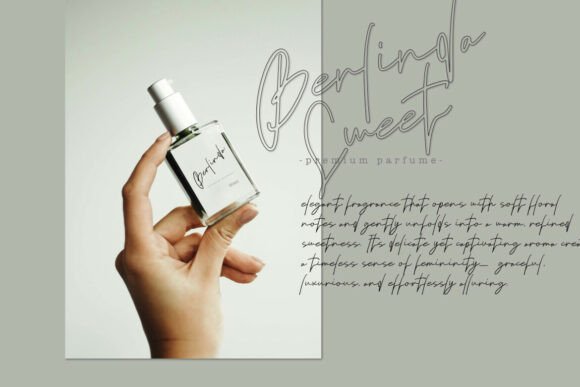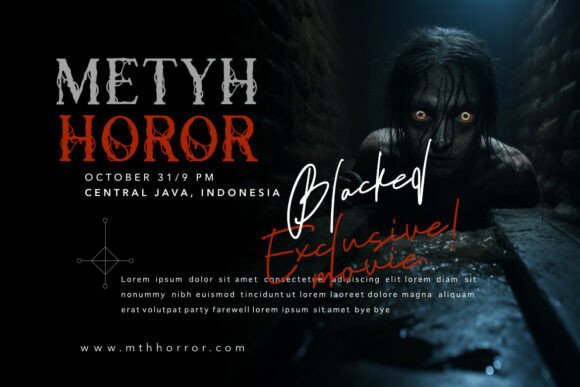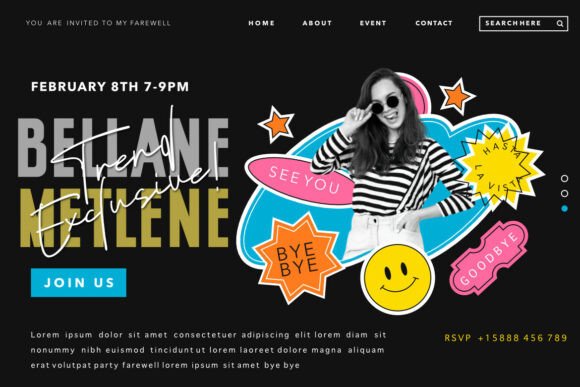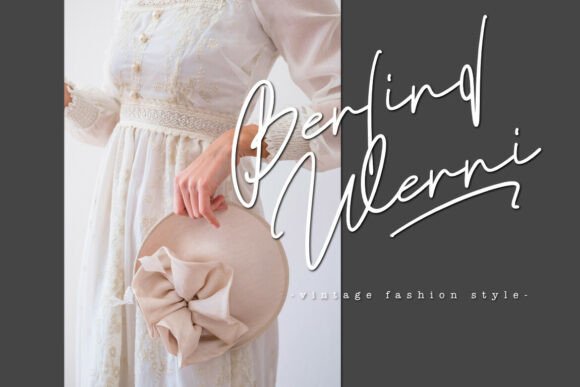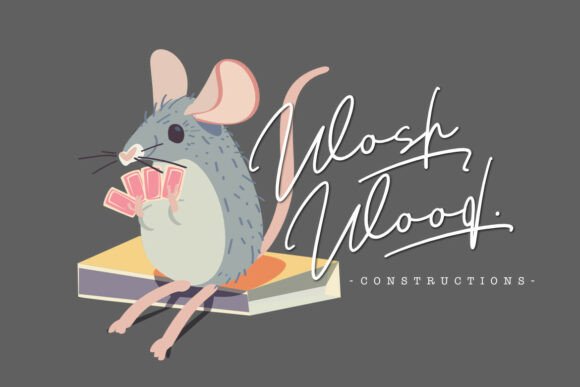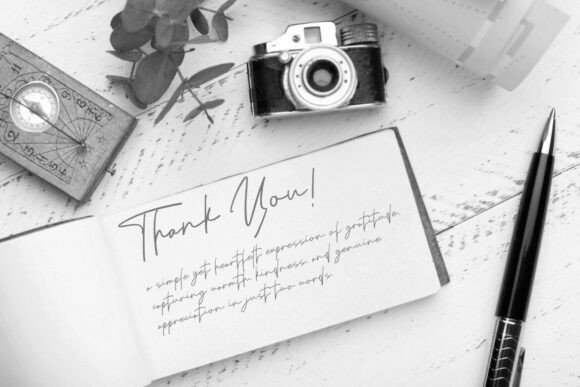
A Script Font that Captivates: Berlinda Werni Font
As a designer, there’s nothing quite like the thrill of creating a visual identity that perfectly captures the essence of a brand. For me, that moment came when I stumbled upon a beautifully handwritten note from a loved one – the imperfect strokes, the gentle curves, and the personal touch that made it truly special. It was then that I knew I had to find a font that could replicate that same magic. Enter Berlinda Werni Font, a stunning monoline script font that embodies the perfect blend of elegance, sophistication, and natural charm.
Berlinda Werni Font is designed to evoke the feeling of flowing pen strokes and timeless signature lettering, making it a valuable addition to any designer’s toolkit. With its clean monoline lines, balanced proportions, and seamless flow, this font delivers a refined and professional handwritten look that’s perfect for branding, wedding designs, editorial layouts, and more. Whether you’re looking to add a touch of luxury or personality to your designs, Berlinda Werni Font is sure to impress.
- Unique Characteristics: Berlinda Werni features a clean, modern design with a subtle flair, making it suitable for a variety of applications, from digital interfaces to print materials.
Berlinda Werni Font Review
Overall, I think Berlinda Werni is a decent font. It has its charm and some aspects that I quite like.
- Unique aesthetic: Berlinda Werni has a distinct look that sets it apart from other fonts.
- Good for creative projects: Its quirky feel makes it suitable for artistic or whimsical designs.
- Legibility: Despite its ornate appearance, the font is still readable, especially at larger sizes.
- Not ideal for body text: Due to its ornate nature, Berlinda Werni may be too distracting for large blocks of text.
- Limited versatility: While it’s great for creative projects, it may not be the best choice for more formal or professional designs.
- Font size limitations: At smaller sizes, the font can become difficult to read due to its intricate details.
Overall, Berlinda Werni is a font that’s best suited for specific projects or designs where its unique aesthetic can shine. While it may have some limitations, it can be a great addition to a designer’s toolkit for the right projects.
The Great Vibes Font is a modern script font that is perfect for adding a touch of elegance and sophistication to your designs. It is ideal for use in titles, headings, and other areas where a decorative font is needed. Great Vibes Font has a more refined and polished look compared to Berlinda Werni Font, making it suitable for formal and professional projects.
The Alex Brush Font is a beautiful script font that is reminiscent of handwritten lettering. It is perfect for use in creative and artistic projects, such as branding, packaging, and advertising. Alex Brush Font has a more organic and whimsical feel compared to Berlinda Werni Font, making it suitable for projects that require a touch of personality and charm.